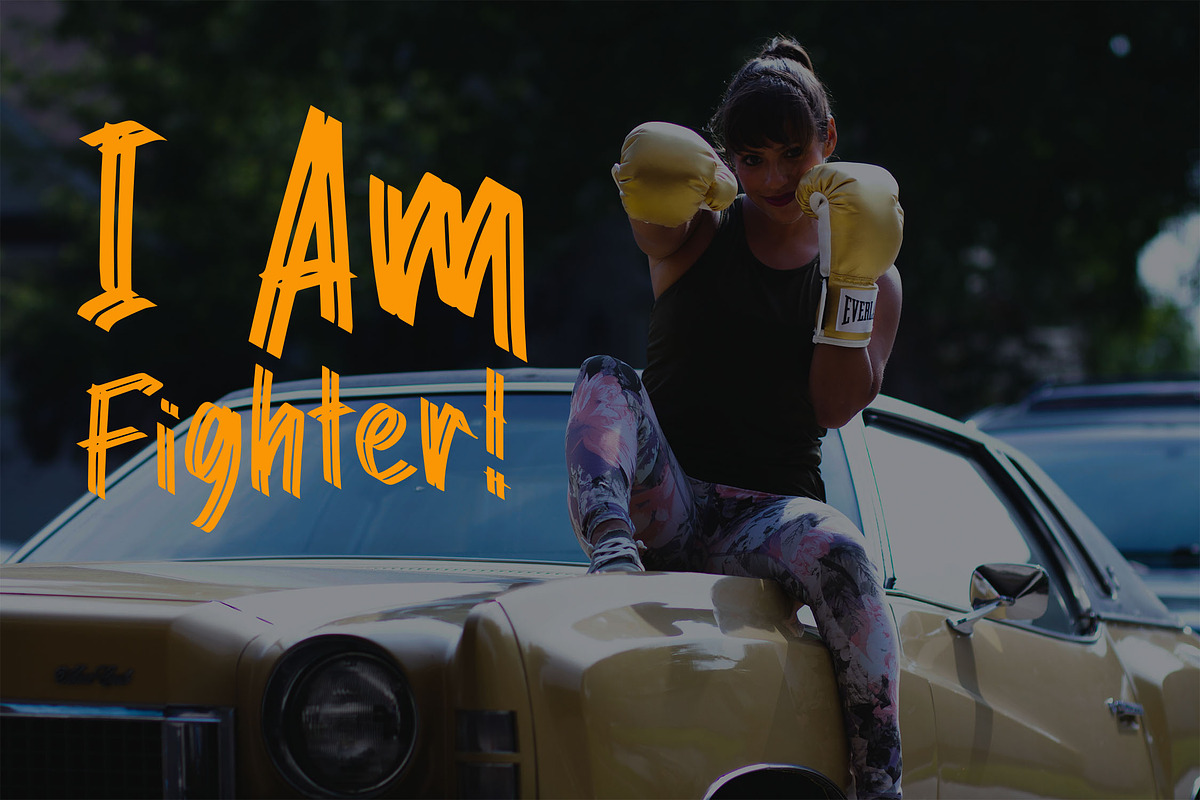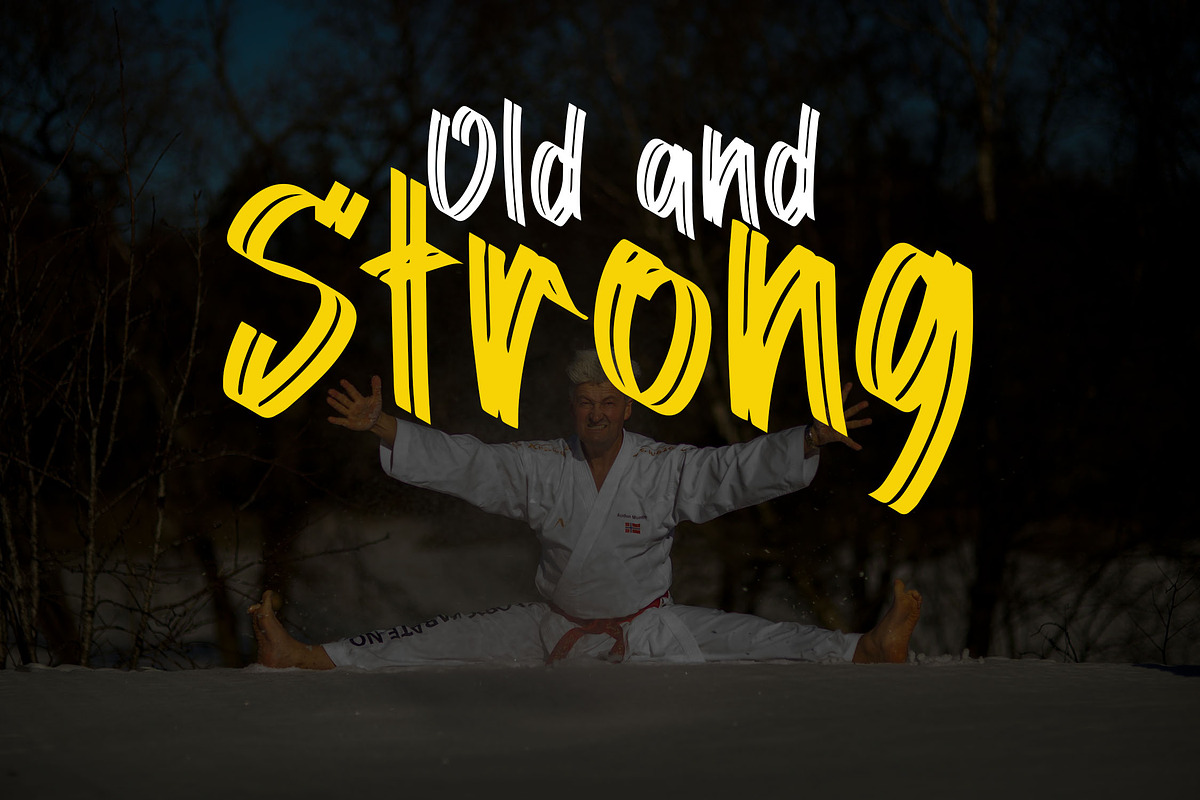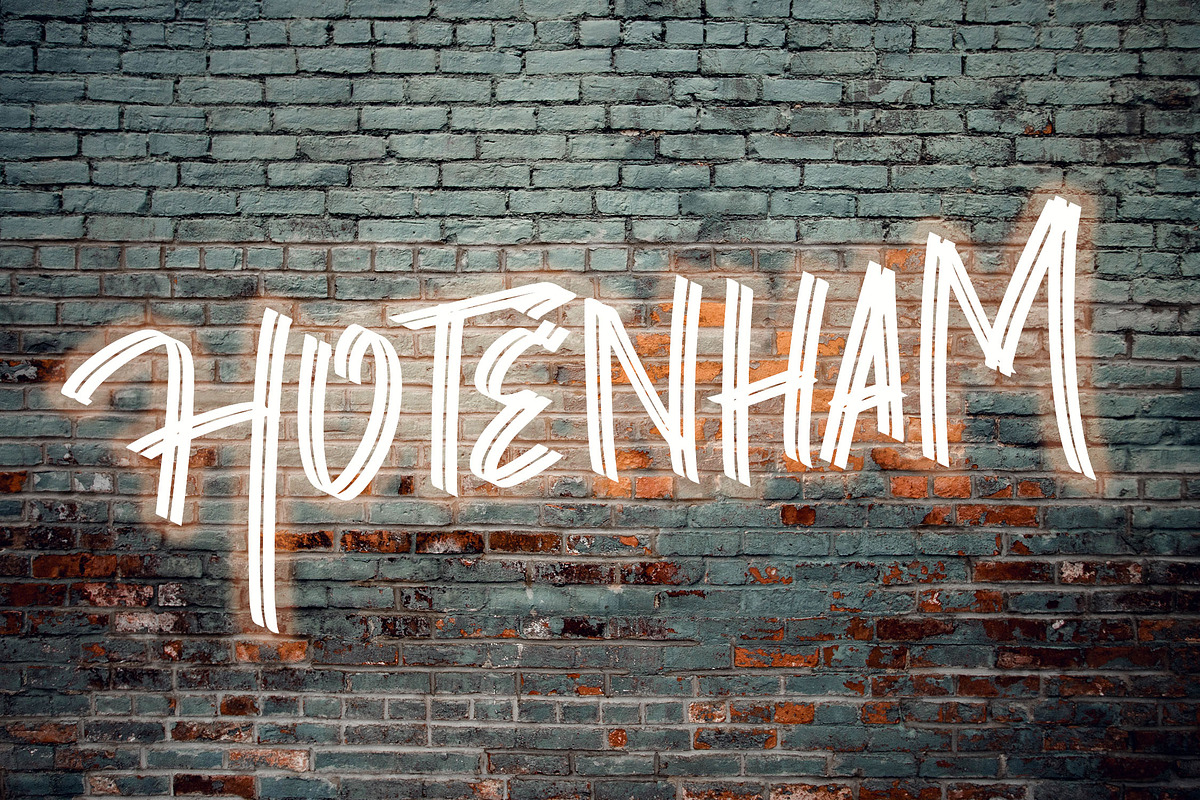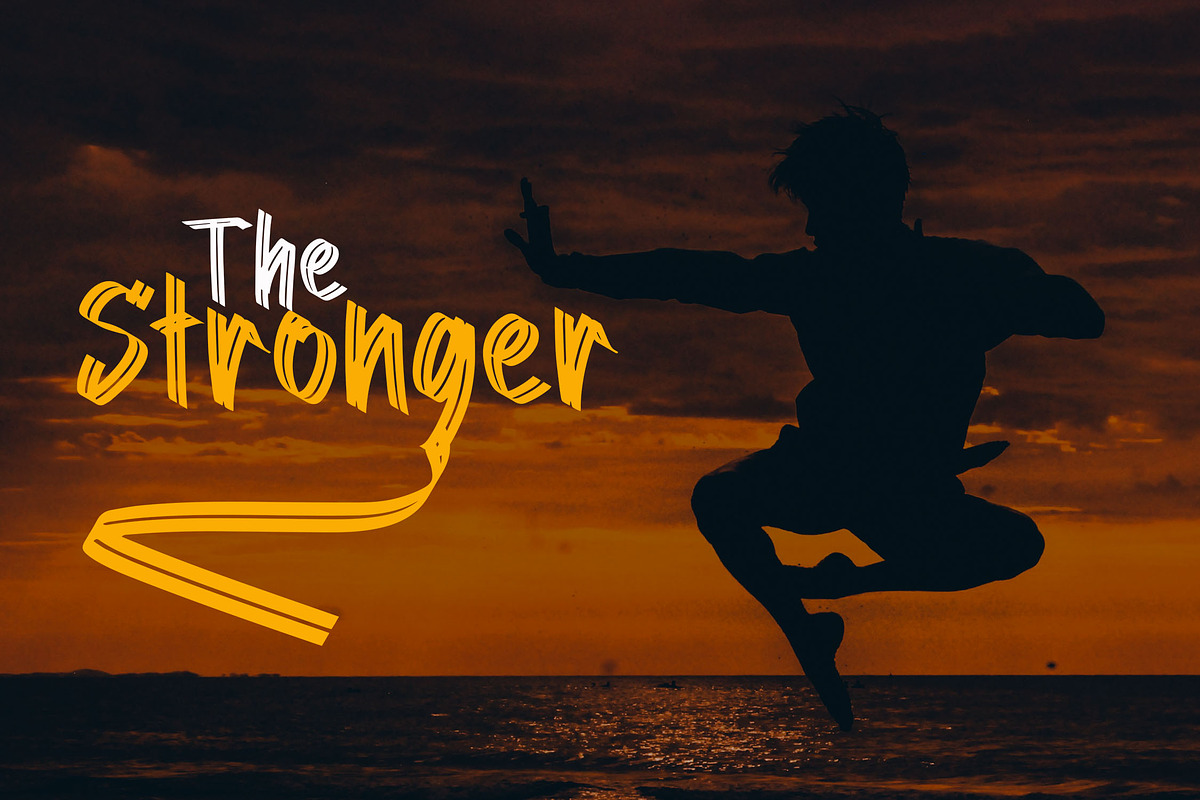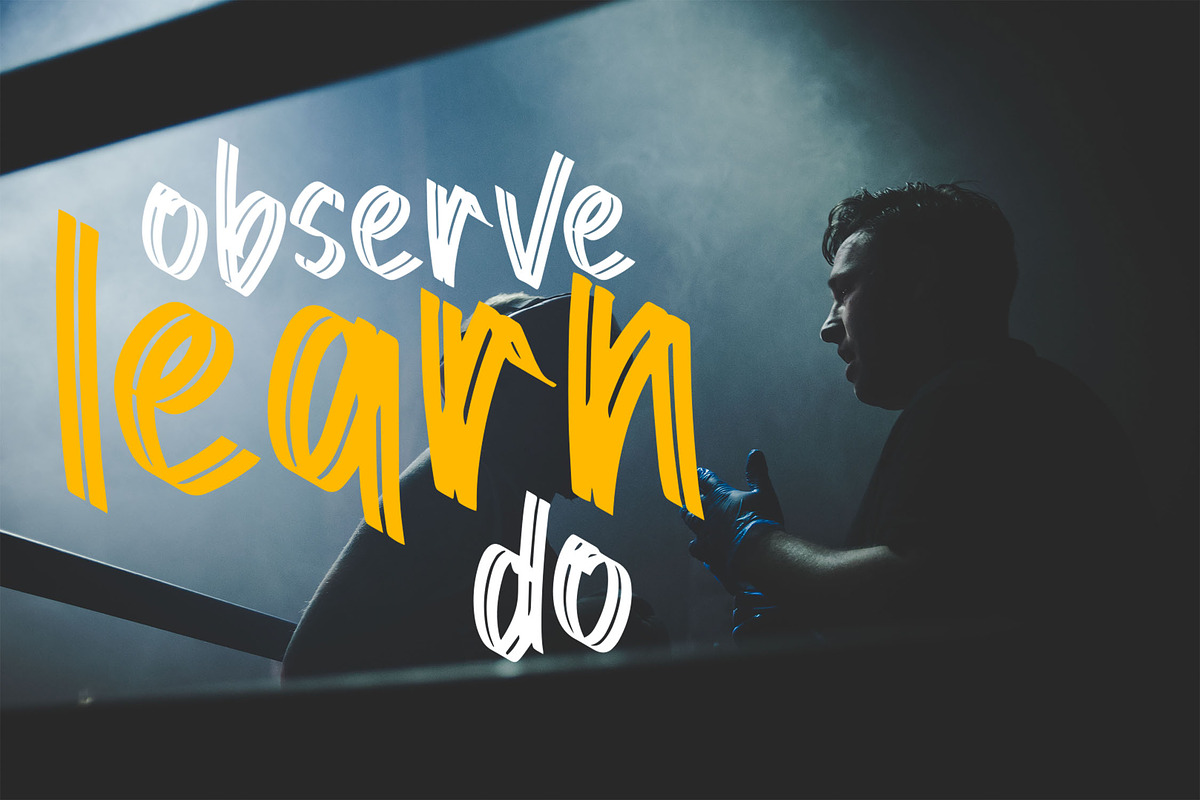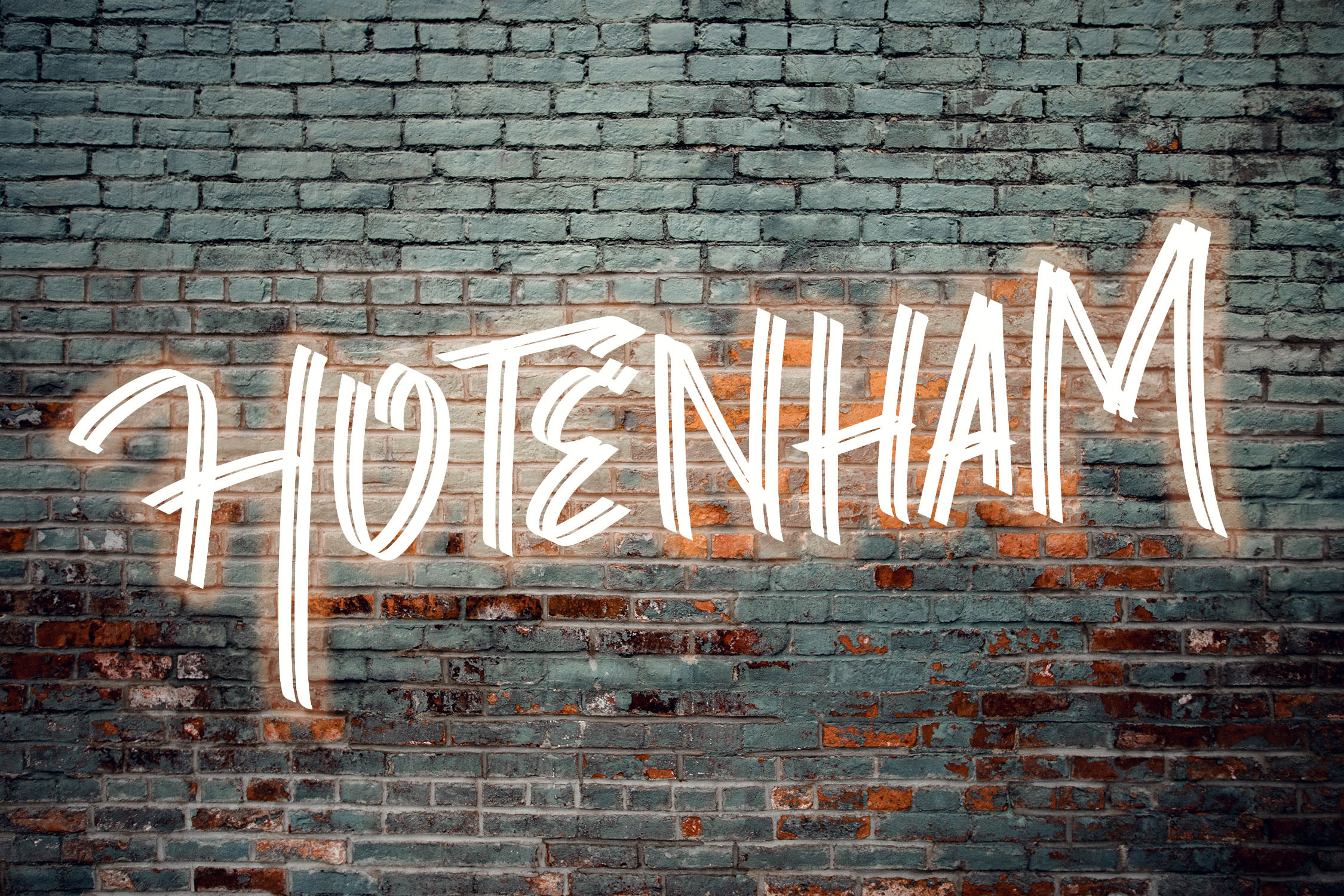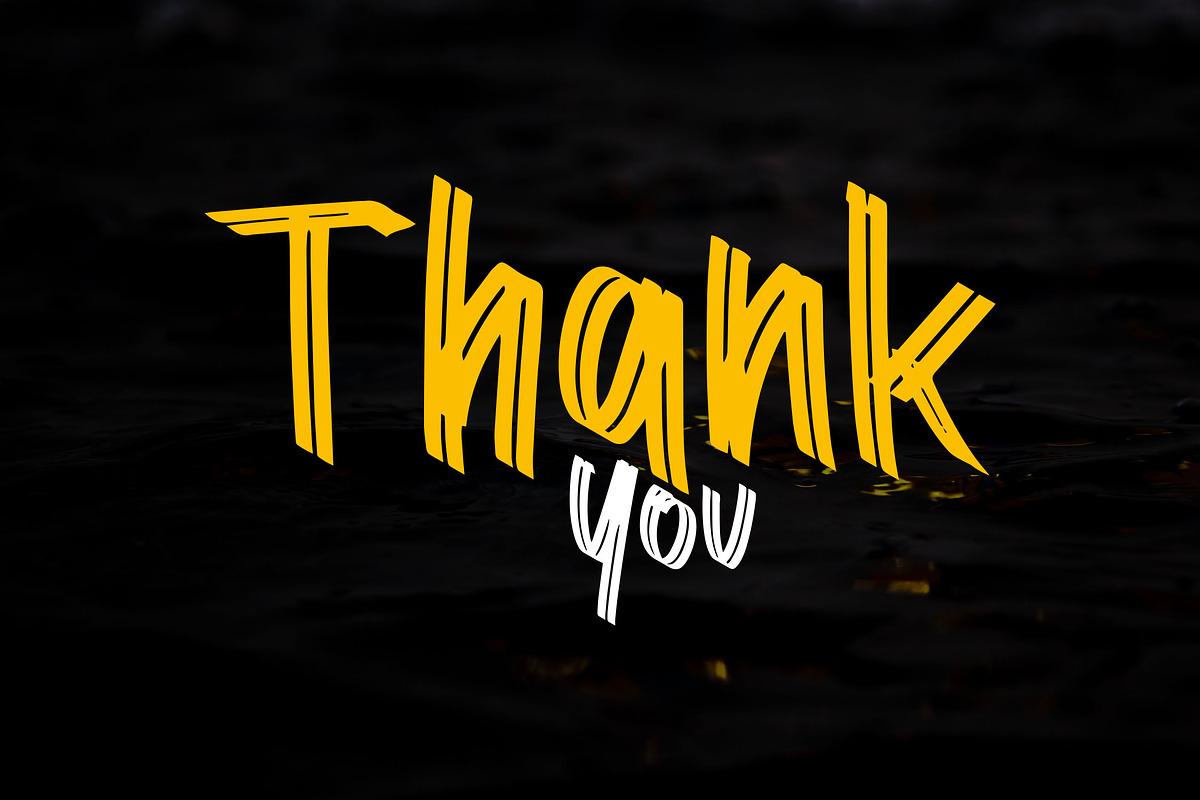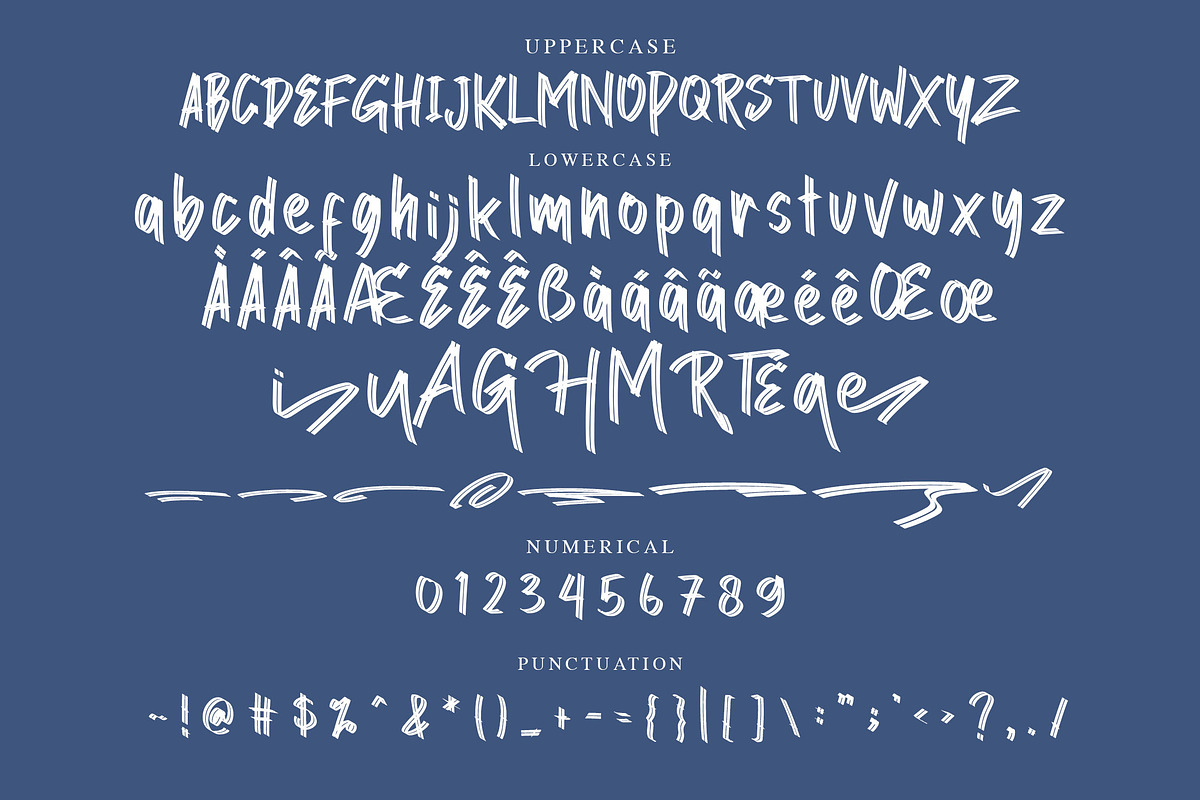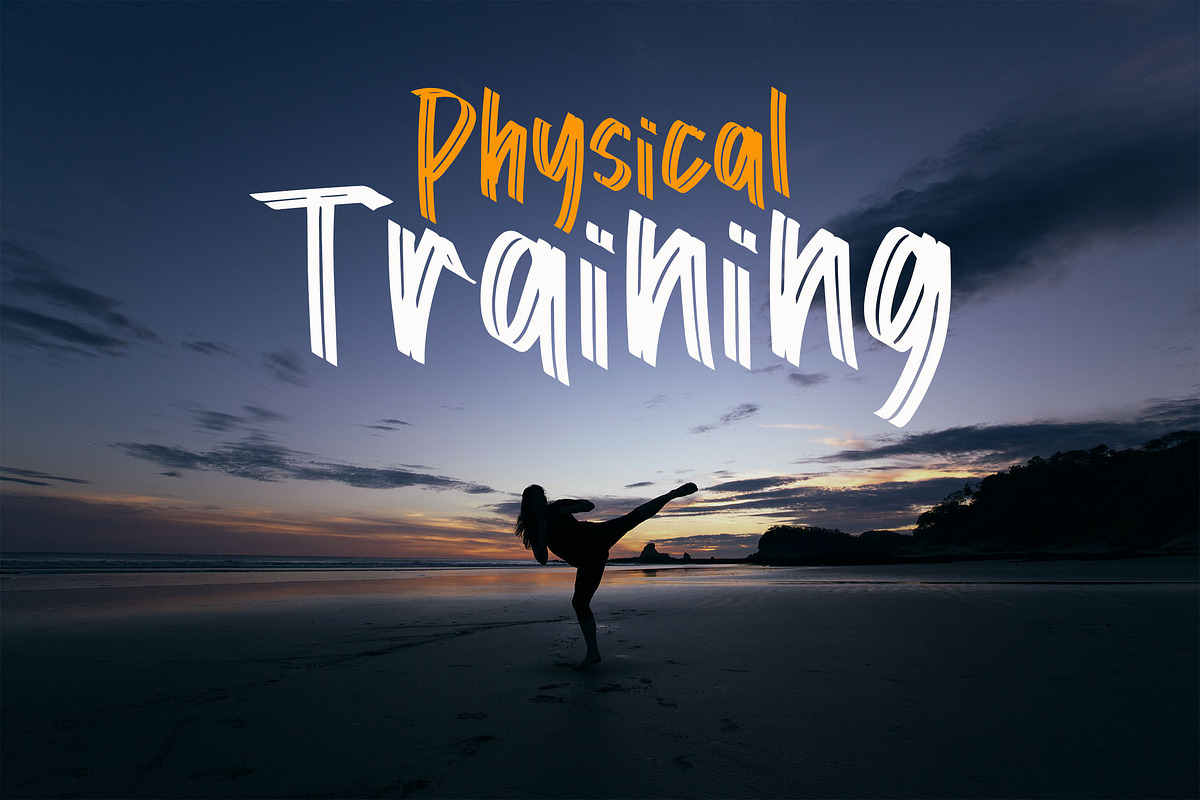
HOTENHAM - Dual Brush Display Font
HOTENHAM is a cool handwritten font with a dual brush style. Is a font style that is made with handwritten scratches shapes font characters are very cool. Can be applied to support the graphic appearance of the product to be more attractive and unique. This font is very nice for designing magazine previews and covers design, logo designs, shirt designs, and other graphic needs.
- Stylistic Alternate